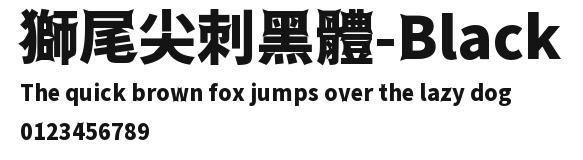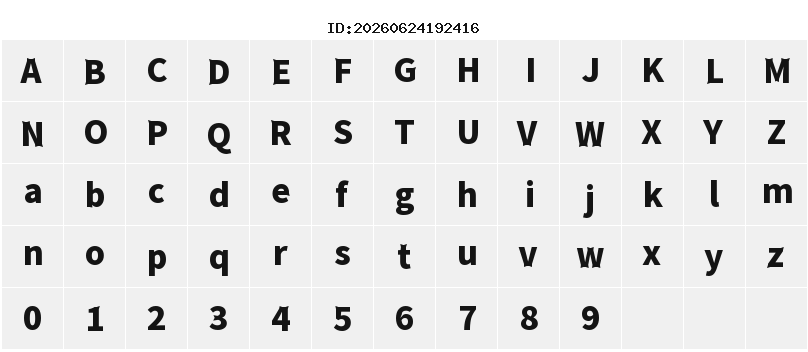
• Font Name: 獅尾尖刺黑體-Black
• Font Style: Black
• Full Font Name: 獅尾尖刺黑體-Black
• PostScript Name: SweiSpikeSansCJKtc-Black
About 獅尾尖刺黑體-Black.ttf
獅尾尖刺黑體-Black.ttf is a modern, elegant sans-serif font designed for ultimate readability and visual harmony. Perfect for branding, headlines, web design, and print materials.